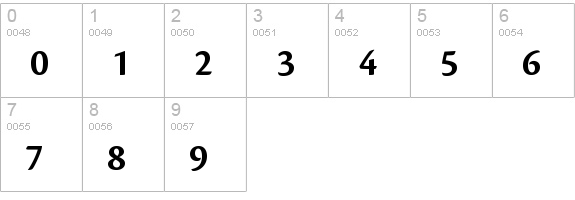
Cronos Pro Semibold Display Font Details
Cronos Pro Semibold Display is a sub-bold, structured variant in the Cronos typeface family \xE2\x80\x94 well suited to sub-headlines and emphasised passages.
Cronos Pro Semibold Display font strikes the perfect balance between sophistication and modernity with its bold and commanding presence on the page. Its strong and distinct letterforms lend a sense of authority and professionalism to any design project. The semi-bold weight adds a touch of gravitas while maintaining readability and clarity. This versatile typeface is ideal for headlines, titles, and display text where you want to make a bold statement. Whether used in print or digital media, Cronos Pro Semibold Display font demands attention and leaves a lasting impression on the viewer. Best of all, this premium font is available for free download at FontsMarket.com. Don't miss the opportunity to add this stunning typeface to your design arsenal and elevate your projects to the next level.